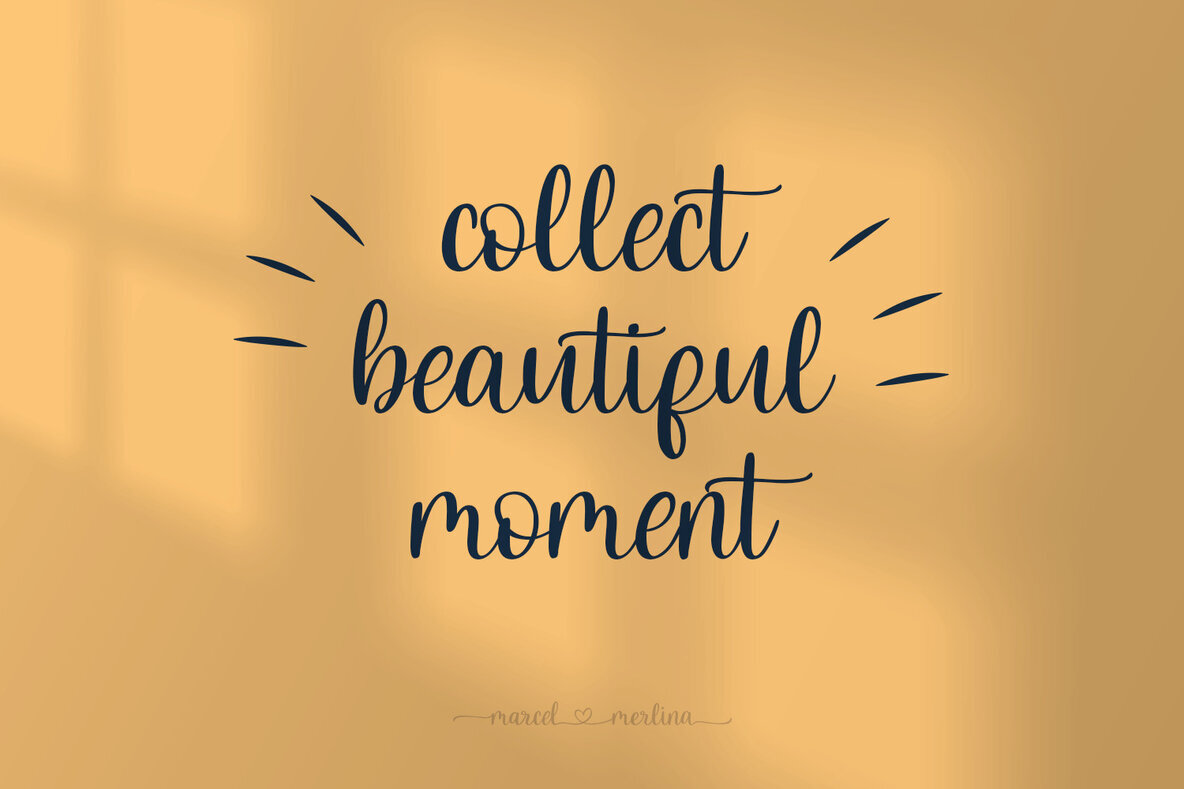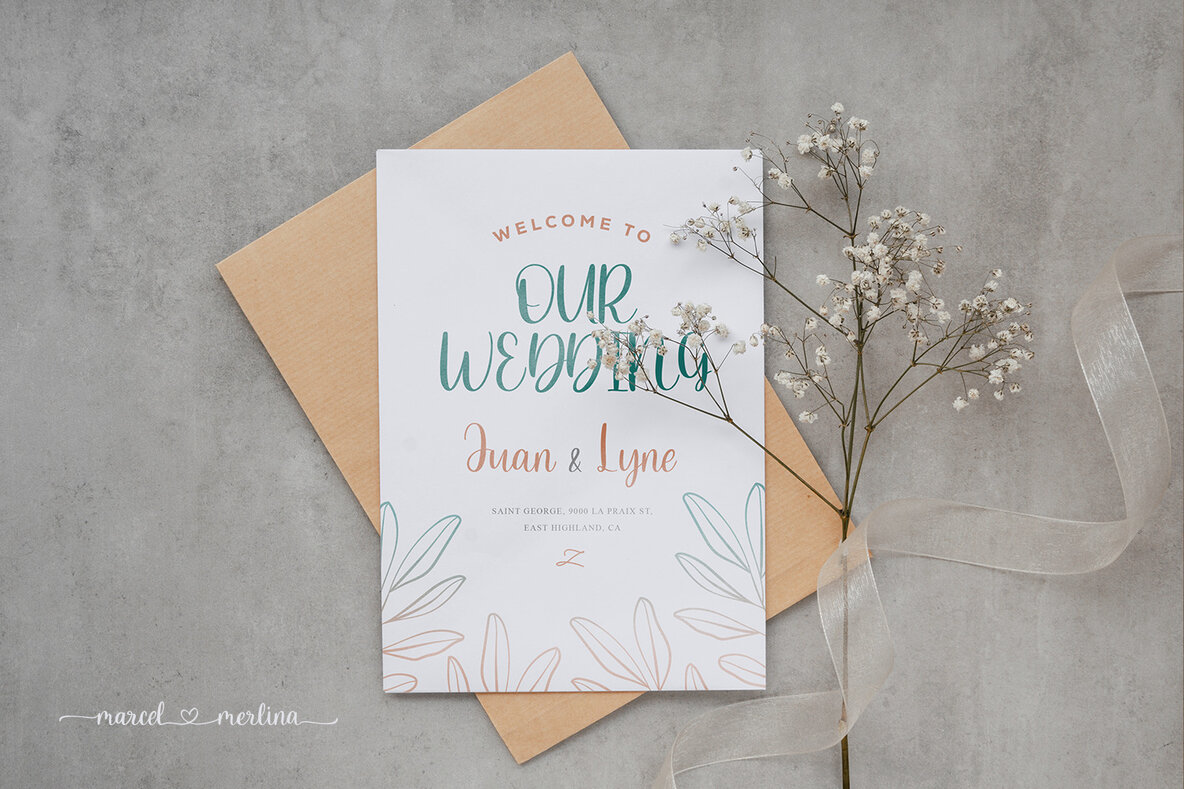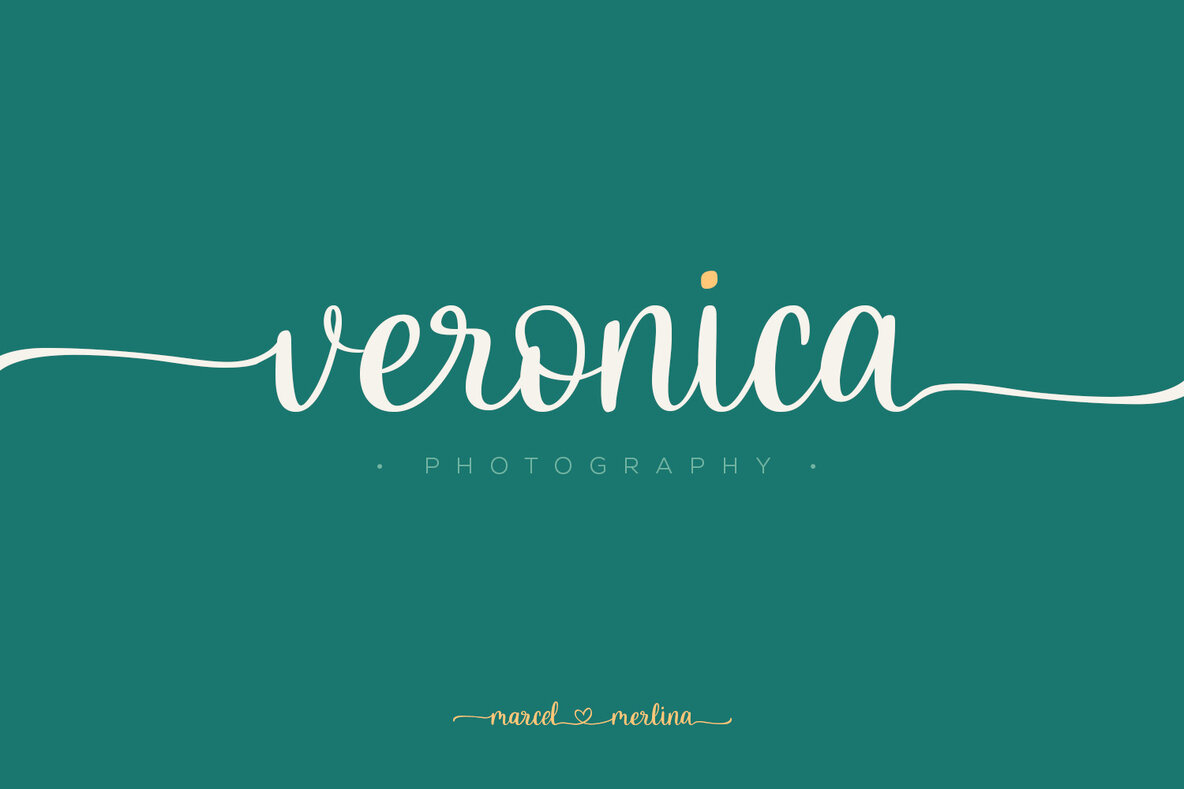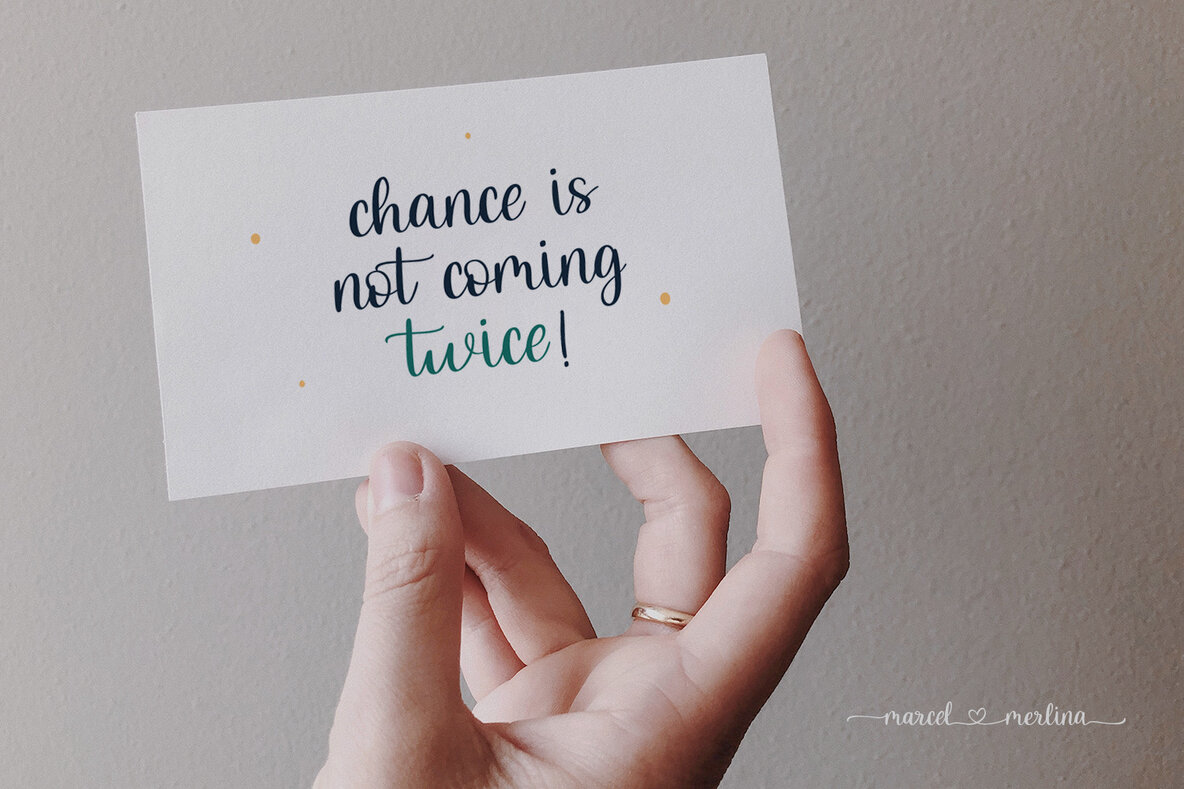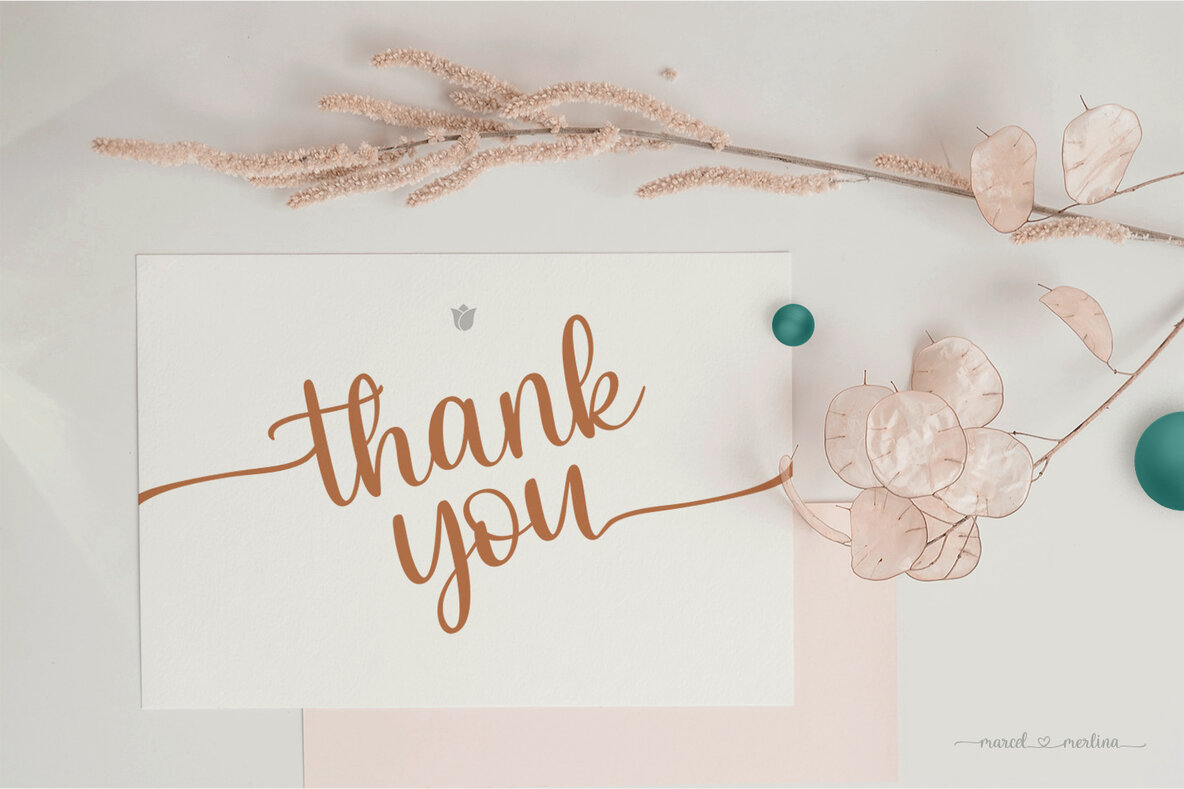
Marcel Merlina Font
Marcel Merlina
Introducing Marcel Merlina - A Lovely Chic Script Font
Marcel and Marlina is now released as beautiful as romance is. This font-type gives you the vibe of an elegant and the classic-yet-so fresh kind of feeling. The curves and the flexibility of the fonts provide you the warm and familiar sense—as if you are reading letters from your beloved ones.
Marcel and Marlina is meant to be endearing—portray the warmth of love. This font is designed to be used in such occasions which require high involvement of delightful emotion. This font would be best to be used in wedding invitations, love letters, and sincere greeting cards for someone so dear to you.